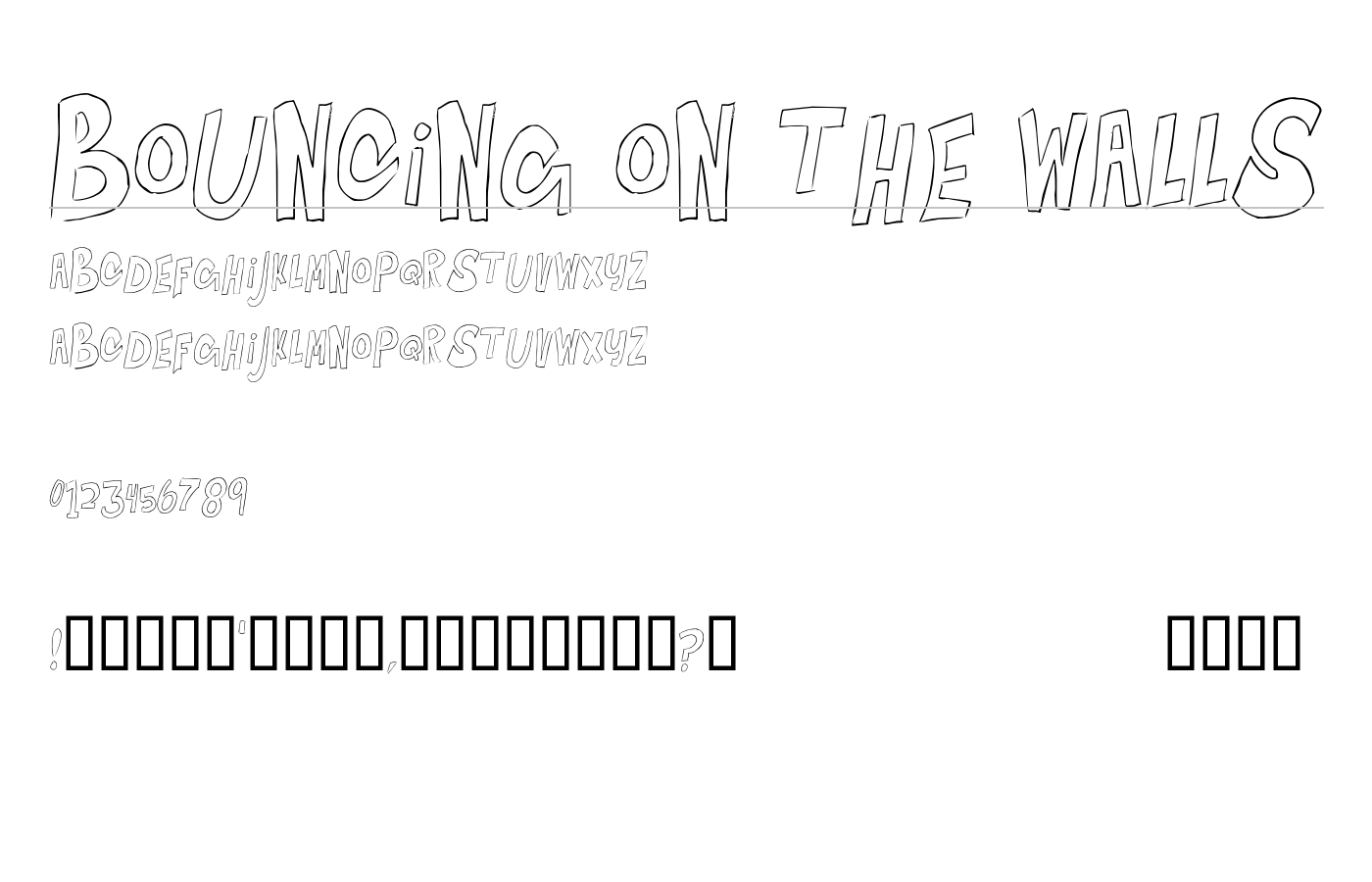
Bouncing on the Walls is a playful, hand-drawn sans serif font with irregular, wobbly letterforms that give it a lively and energetic feel. Its light weight and uneven, sketch-like strokes create a casual and fun vibe, making it perfect for children's projects, informal branding, or creative headlines. This font works best when you want to convey spontaneity and youthful charm in a friendly and approachable way.
Bouncing on the Walls Font
About Bouncing on the Walls Font